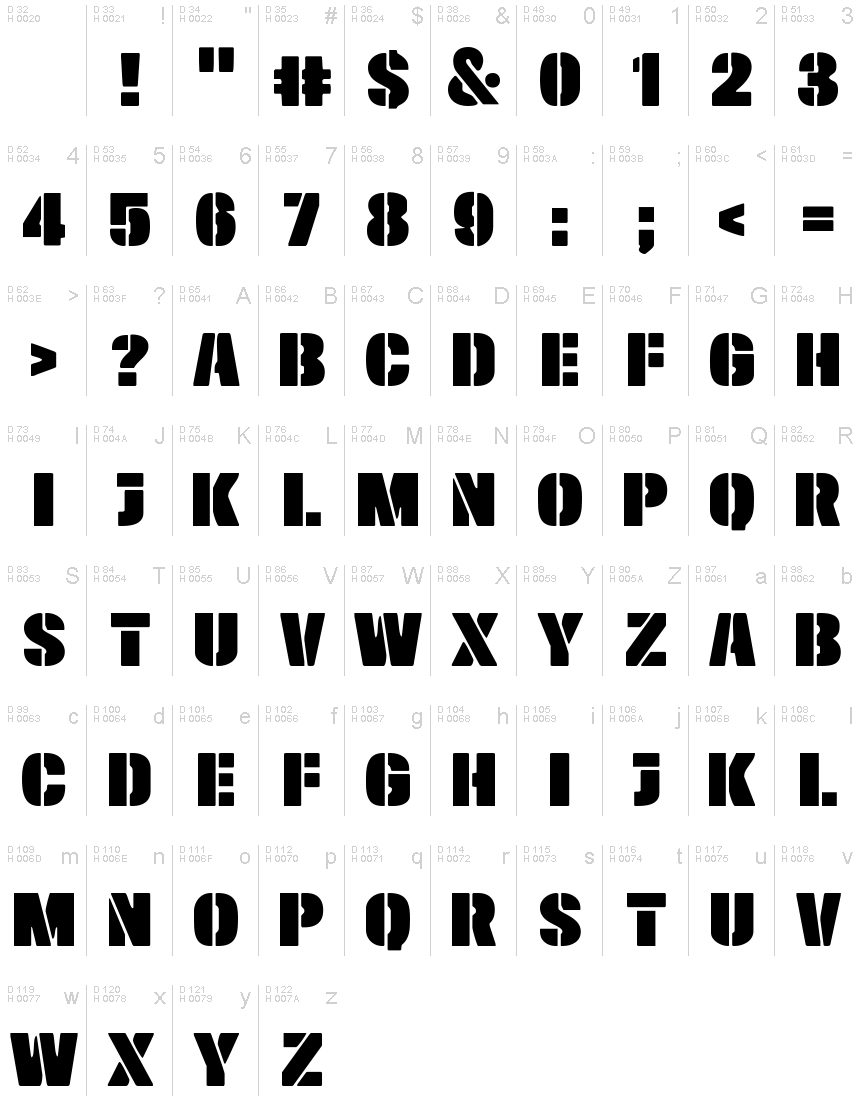
United Mech Blur Demo
United Mech is a stylish stencil font that radiates a sense of strength, professionalism, and futuristic flair. Designed by The Branded Quotes, this captivating typeface draws inspiration from the high-tech aesthetics found in modern science fiction movies and popular tactical video games. The clean lines and bold appearance give the font a distinct military-influenced character, effortlessly conveying a powerful and authoritative tone.
United Mech's versatility makes it a compelling choice for a wide range of design projects. Its striking visual elements lend themselves well to branding, packaging, and promotional materials, where the font's ability to command attention can effectively showcase a product or service. Additionally, United Mech's adaptability extends to editorial design, signage, and even digital user interfaces, where its legibility and impactful presence can elevate the overall aesthetic.